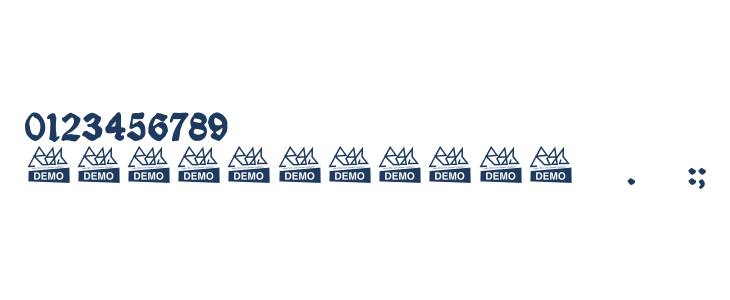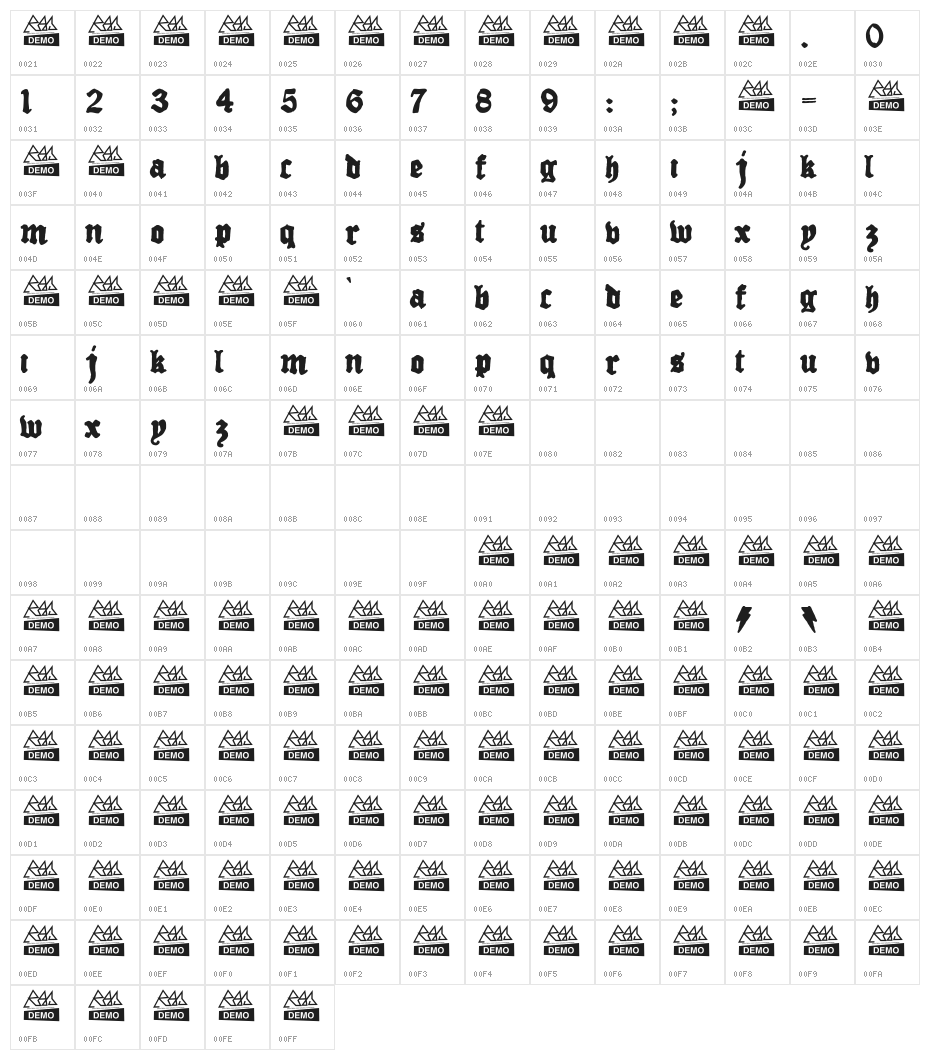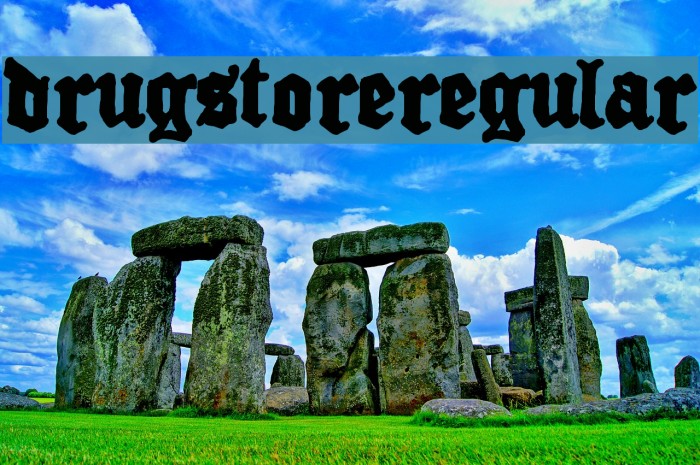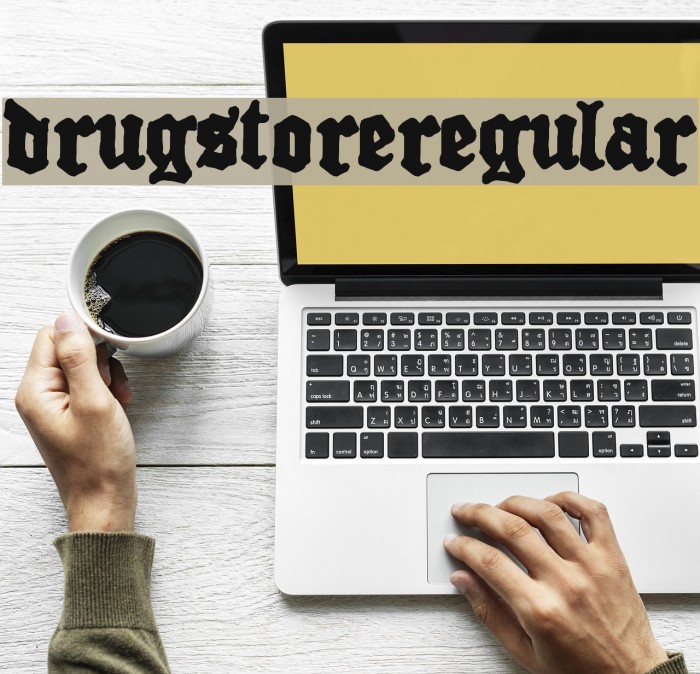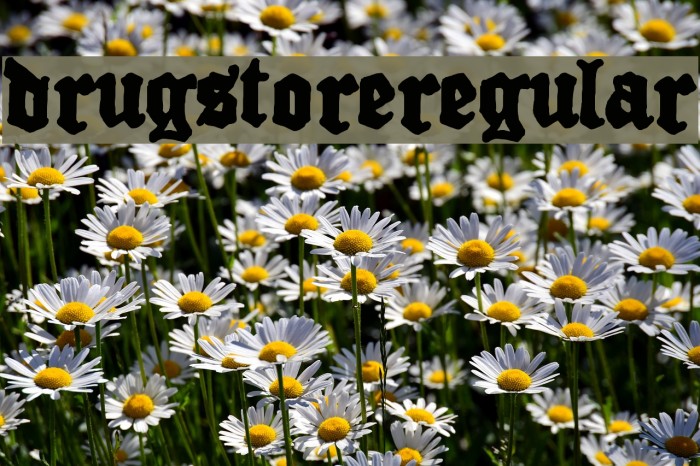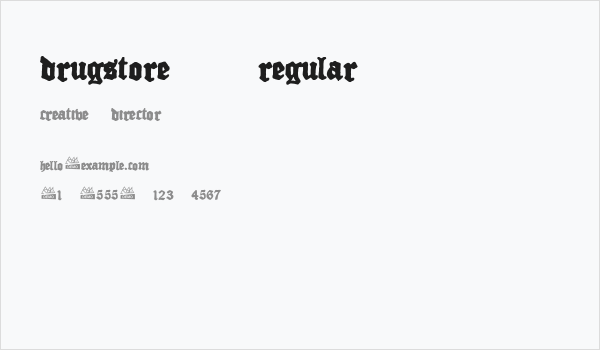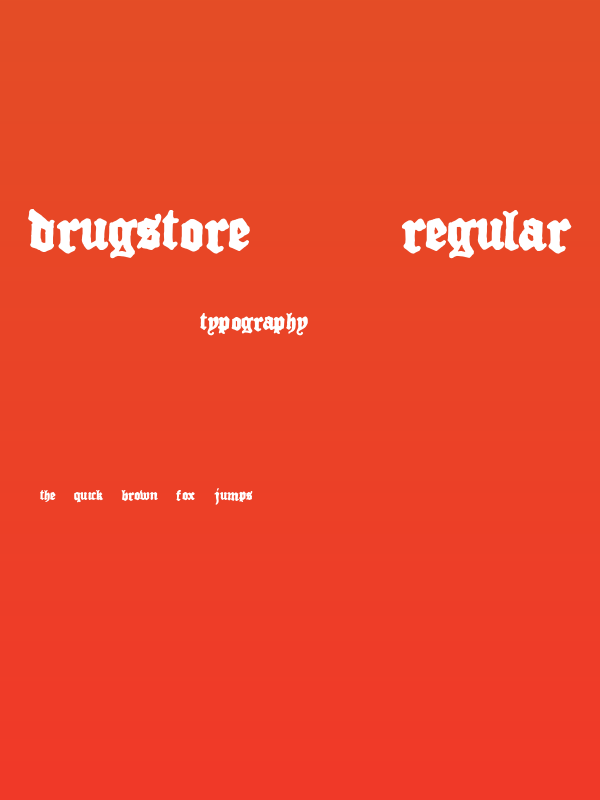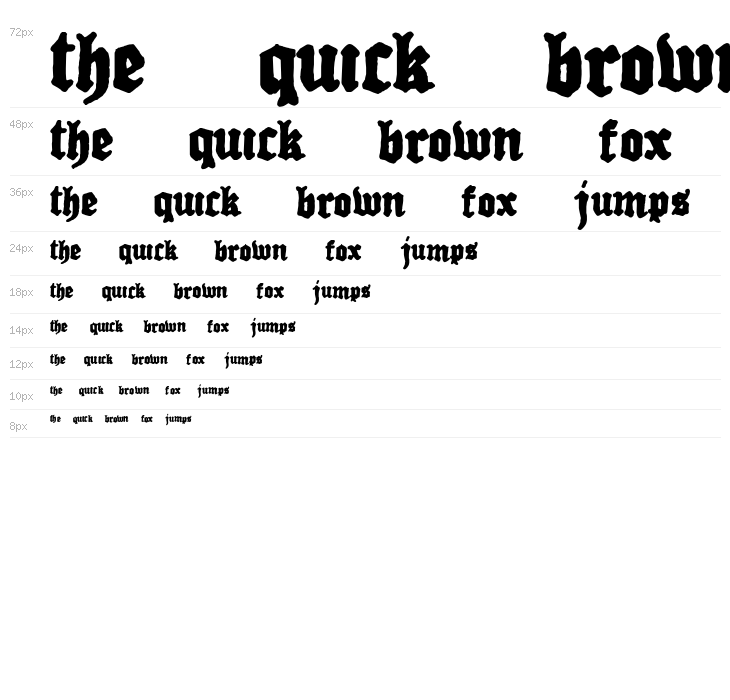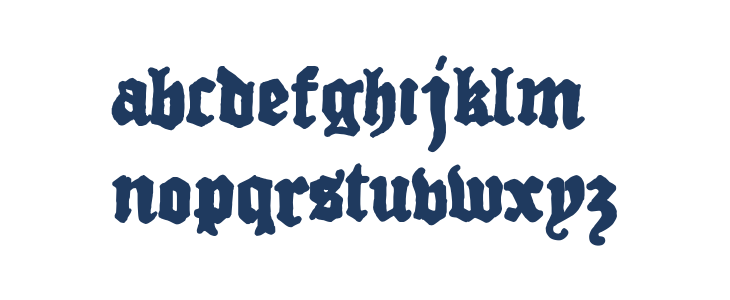
Drugstore Regular Font
Drugstore Regular Description
This font exhibits a bold and dramatic style reminiscent of traditional blackletter typefaces. The characters are characterized by their thick strokes and sharp, angular edges, giving them a strong and authoritative presence. The uppercase and lowercase letters maintain a consistent style, with a distinct medieval flair that is both decorative and impactful. The numerals and special characters follow the same design principles, ensuring uniformity across all glyphs. This font is ideal for projects that require a historical or gothic aesthetic, offering a sense of tradition and gravitas.
| Proposed Projects | Ideal for historical documents, gothic-themed designs, book covers, and branding that requires a traditional or authoritative look. |